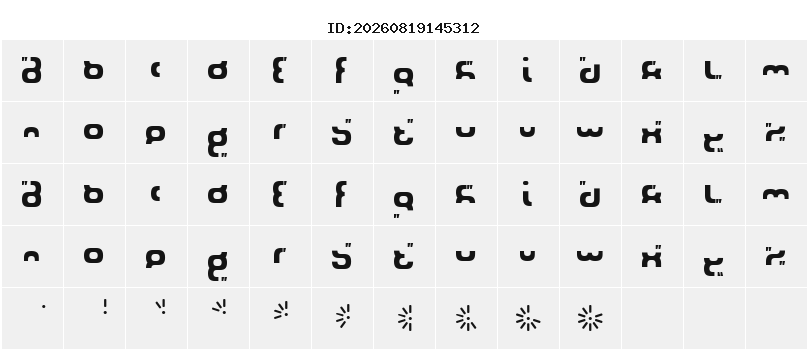
• Font Name: SilverStream
• Designer: Box Full of Sky
• Description: Based on the typeface used for the 1995 PlayStation Game: Wipeout
SilverStream.ttf is a modern, elegant sans-serif font designed for ultimate readability and visual harmony. Perfect for branding, headlines, web design, and print materials.